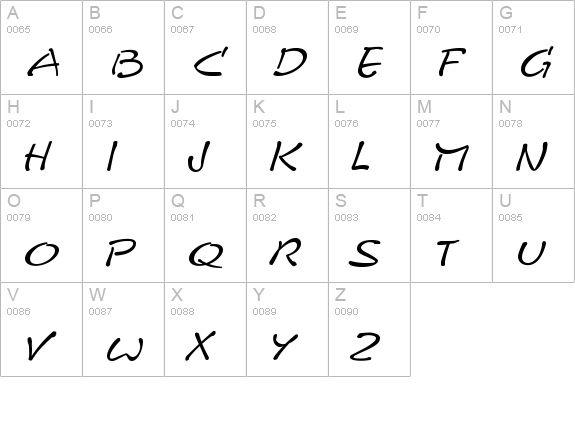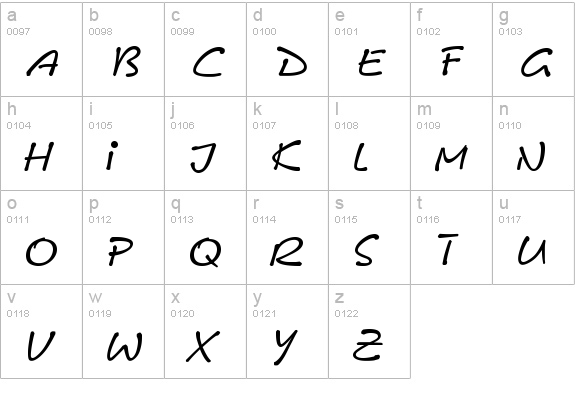
Leobelix-Regular Font Details
Leobelix-Regular is the standard, neutral variant in the Leobelix typeface family \xE2\x80\x94 well suited to general body text, paragraphs, and standard typographic work.
Leobelix-Regular is a modern and stylish font that exudes elegance and sophistication. With its clean lines and balanced proportions, this font is perfect for a wide range of design projects, from logos and branding to packaging and editorial layouts. What makes Leobelix-Regular even more enticing is the fact that it is available for free. Yes, you read that right! This stunning font can be downloaded at absolutely no cost at FontsMarket.com. It's a fantastic opportunity for designers, creatives, and font enthusiasts to add a touch of class to their projects without breaking the bank. The versatility of Leobelix-Regular is truly remarkable. Whether you're creating a sleek and minimalistic design or a bold and impactful one, this font has got you covered. Its wide range of weights and styles allows you to experiment and find the perfect fit for your vision. Not only does Leobelix-Regular offer exceptional aesthetics, but it also provides excellent legibility. Each character is meticulously crafted to ensure optimal readability, making it a reliable choice for both print and digital projects. With Leobelix-Regular, you'll be able to effortlessly elevate your designs to new heights. Its timeless appeal and contemporary charm make it a must-have in any designer's toolkit. So why wait? Head over to FontsMarket.com and download this amazing font for free today!